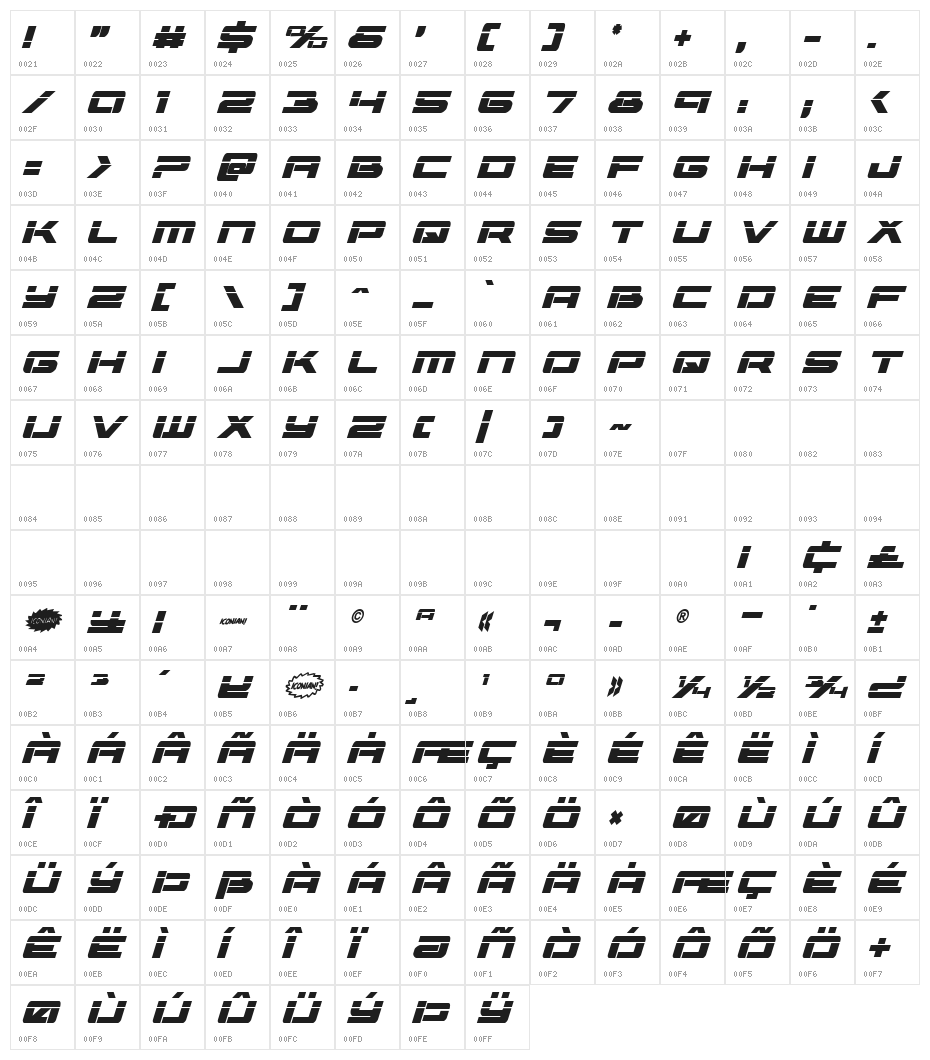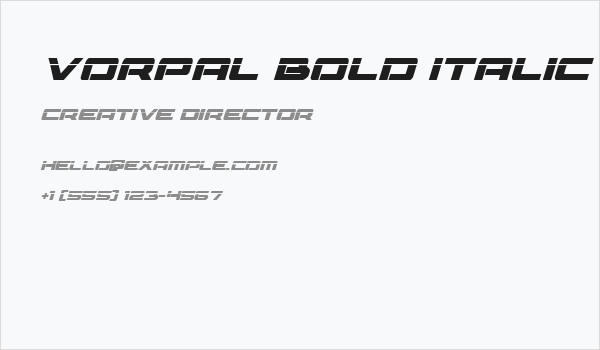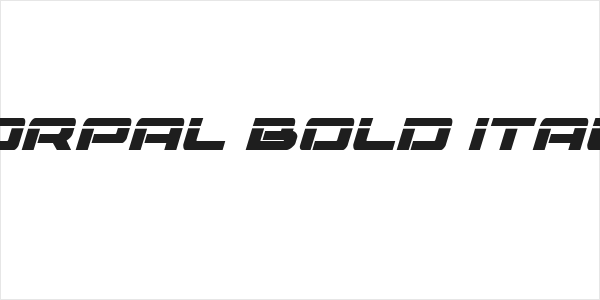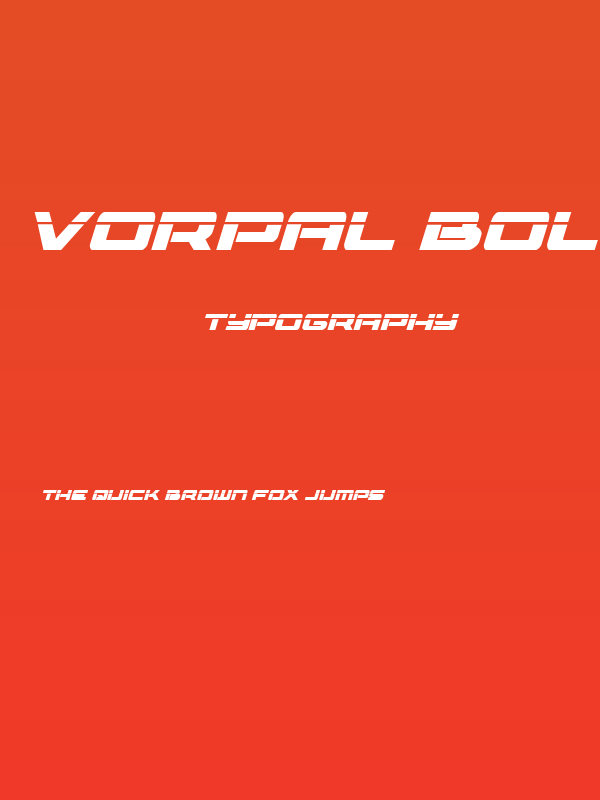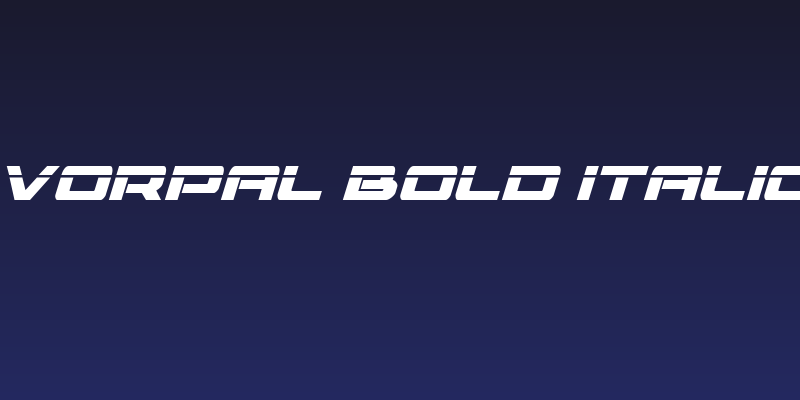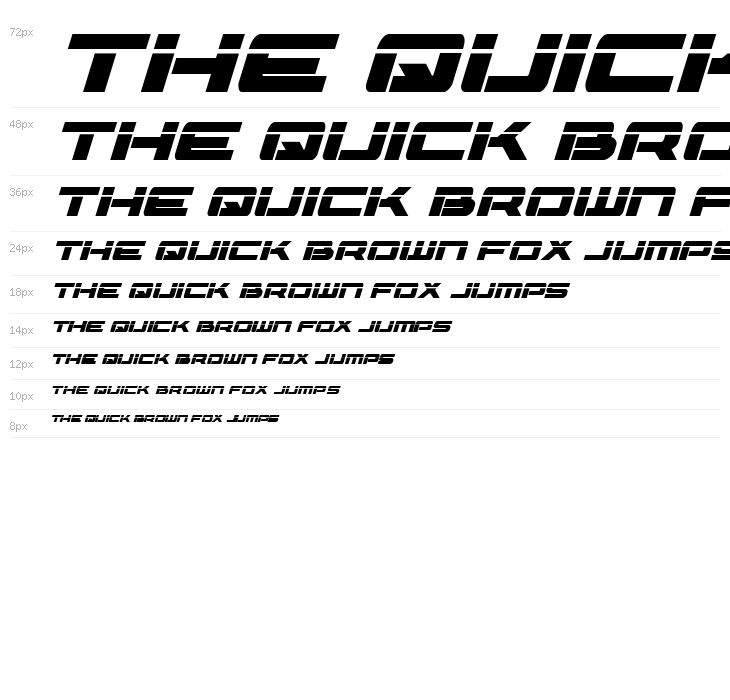
Vorpal Bold Italic Font
Vorpal Bold Italic Description
This font exhibits a bold and italicized style with a futuristic and dynamic appearance. The characters are designed with sharp angles and a forward-leaning slant, giving them a sense of motion and speed. The strokes are thick and consistent, providing a strong visual impact. The uppercase and lowercase letters maintain a uniform height, contributing to a cohesive look. The numerals and special characters follow the same design principles, ensuring a harmonious overall appearance. This font is well-suited for projects that require a modern and edgy aesthetic.
| Proposed Projects | Ideal for technology branding, sports team logos, video game titles, and sci-fi themed designs. |